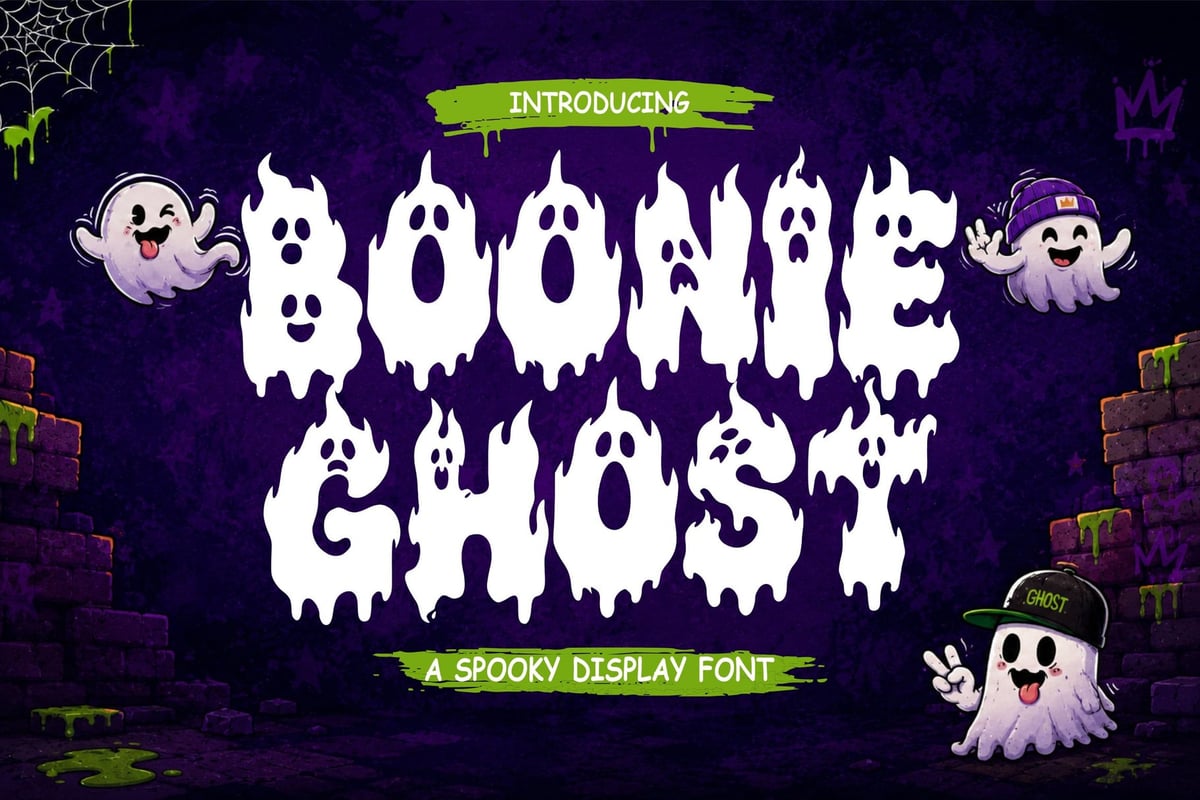
Boonie Ghost
Bring spooky fun to your website with Boonie Ghost, a playful Halloween display font inspired by friendly ghosts, slime drips, and cartoon horror aesthetics. Its bold ghost-shaped letterforms instantly capture attention, making it perfect for websites that need festive seasonal typography with excellent readability. Designed for digital experiences, Boonie Ghost is ideal for Halloween landing pages, promotional banners, event websites, ecommerce hero sections, blog headlines, kids activities, o